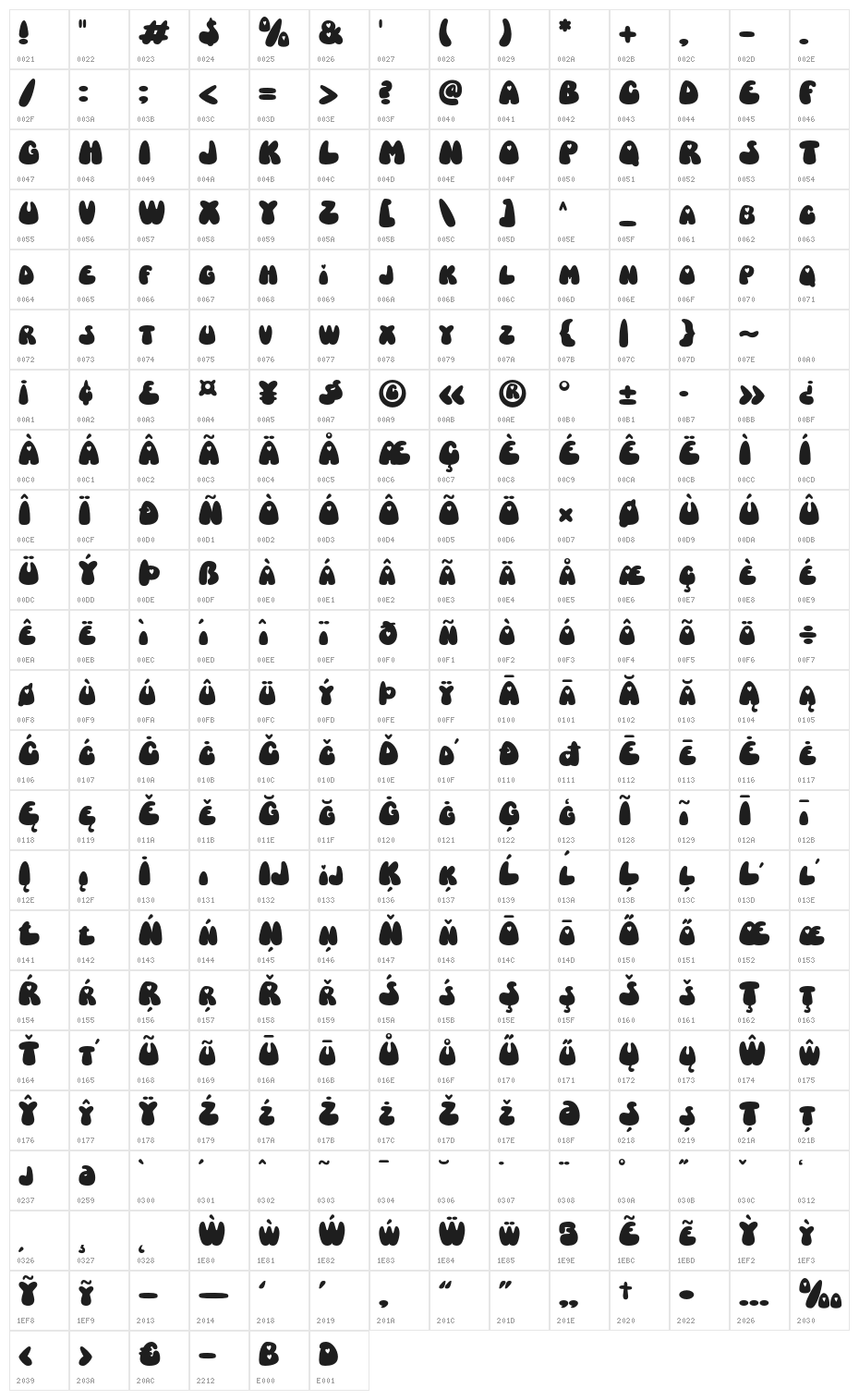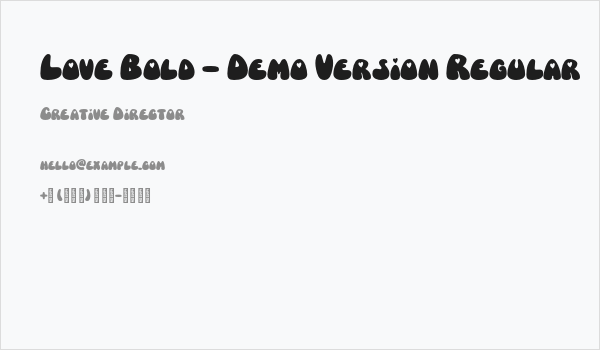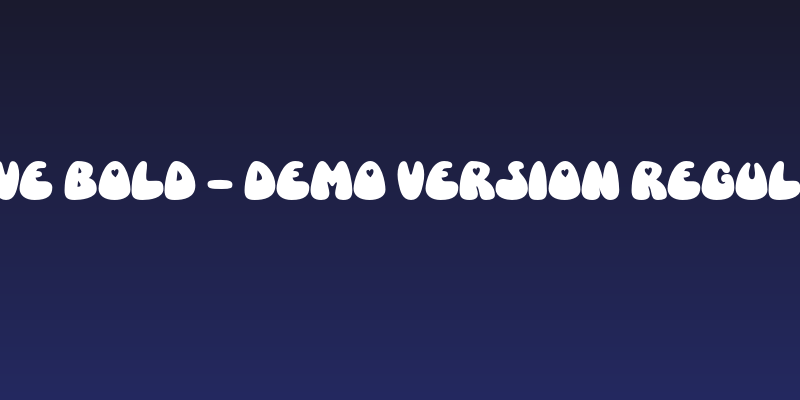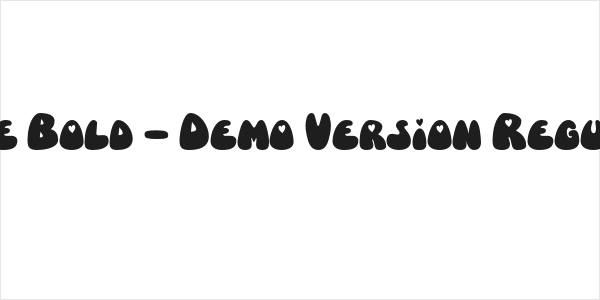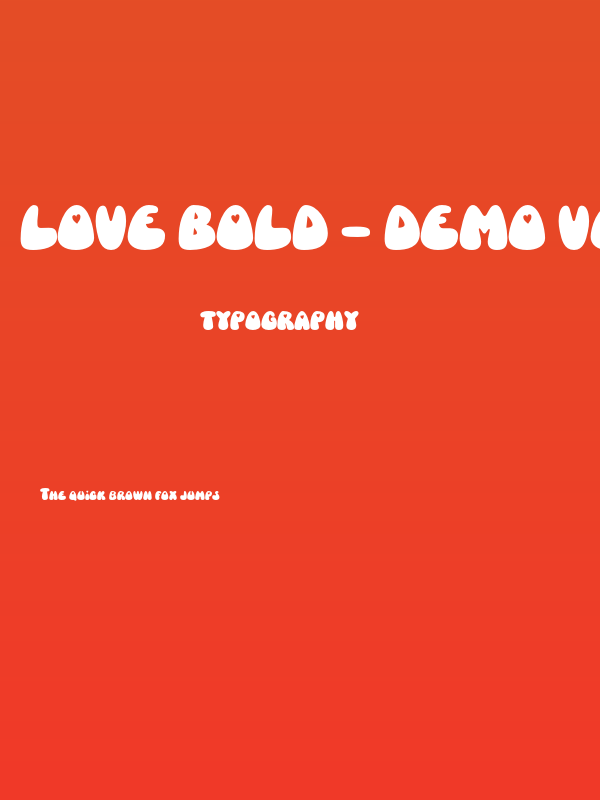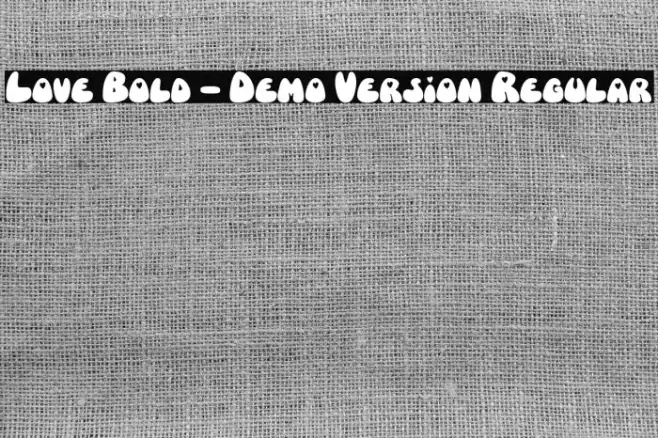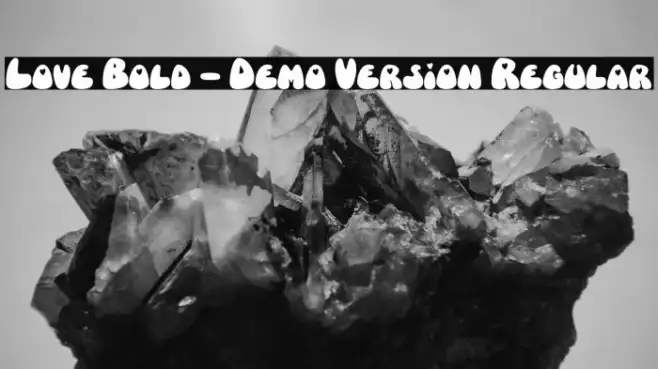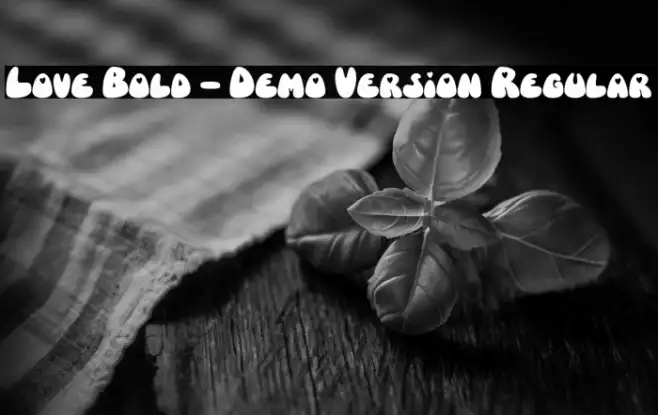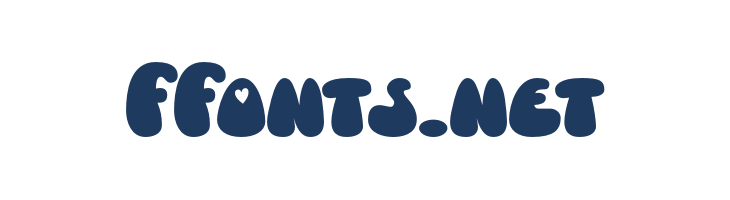
Love Bold - Demo Version Regular Font
This playful and bold font features rounded, bubbly characters with a whimsical touch. The letters are thick and have a consistent weight throughout, creating a strong visual impact. The font includes unique heart-shaped cutouts within some characters, adding a charming and romantic flair. Its exaggerated curves and smooth edges make it stand out, perfect for designs that require a fun and lively appearance. The font is well-suited for creative projects that aim to convey joy and friendliness.
| Proposed Projects | Ideal for children's books, greeting cards, playful branding, and event invitations. |